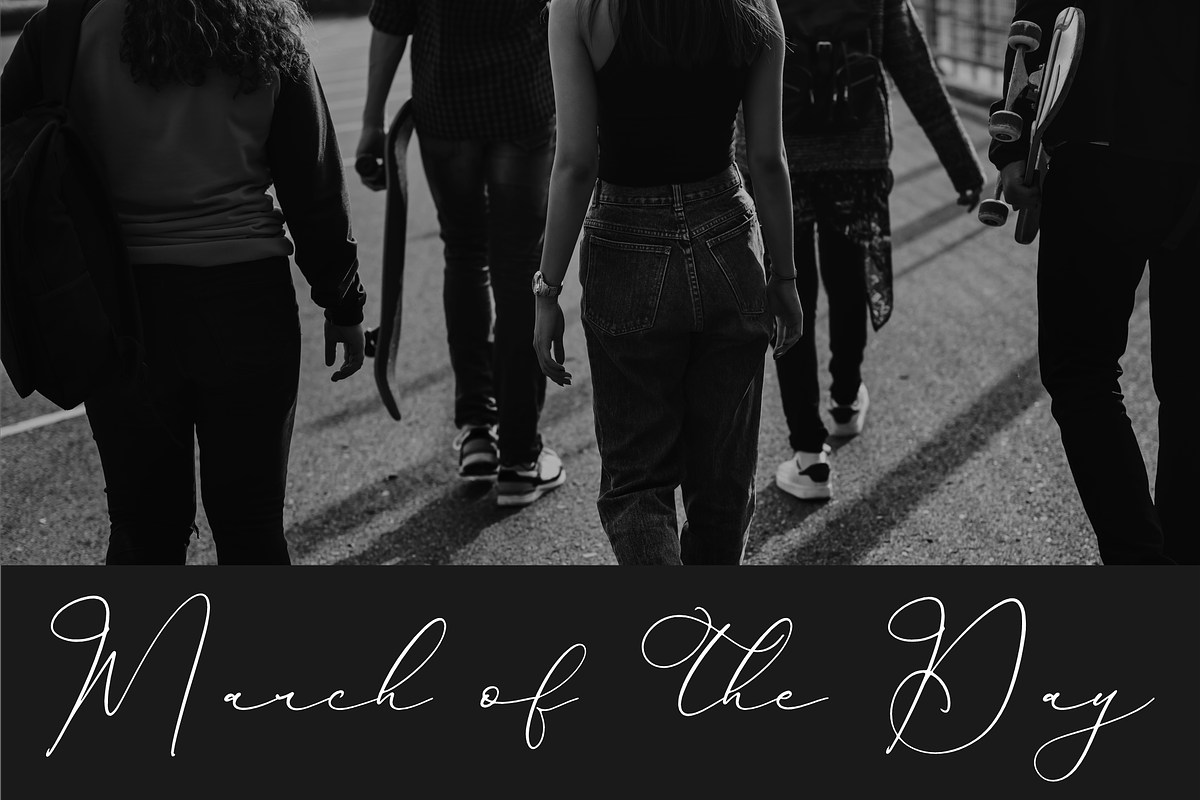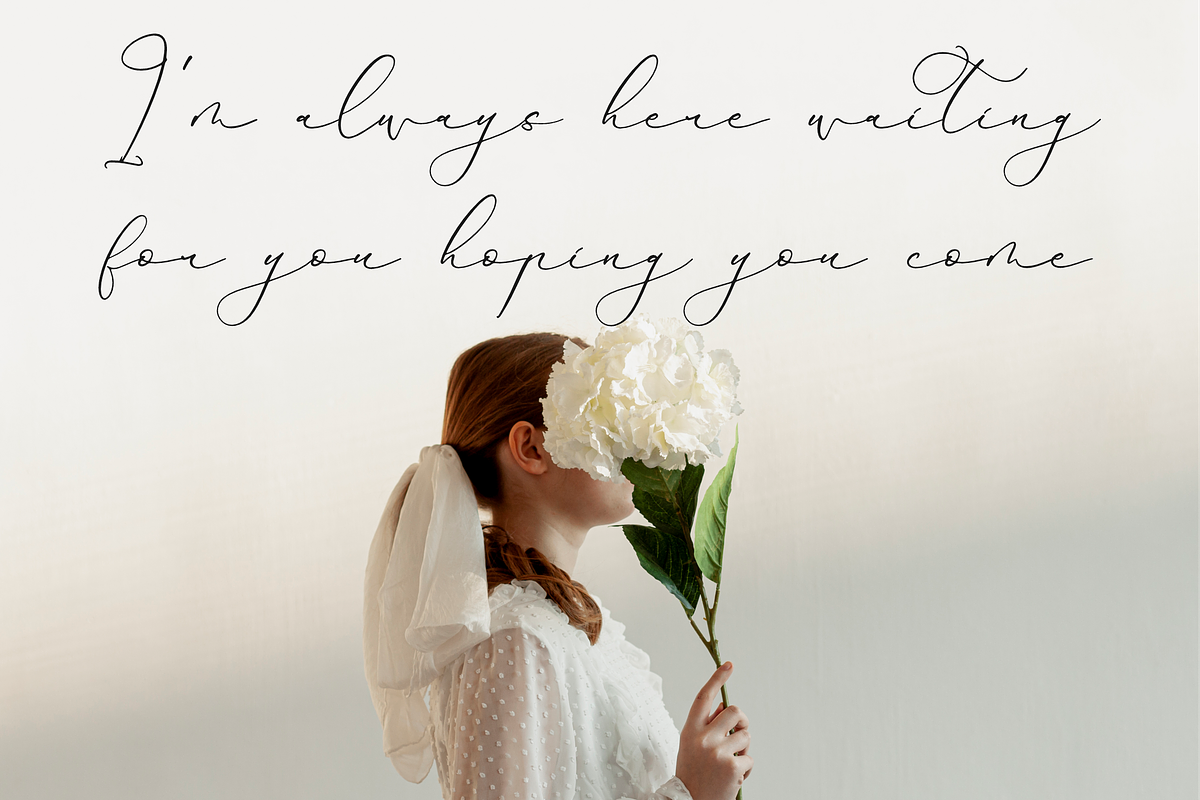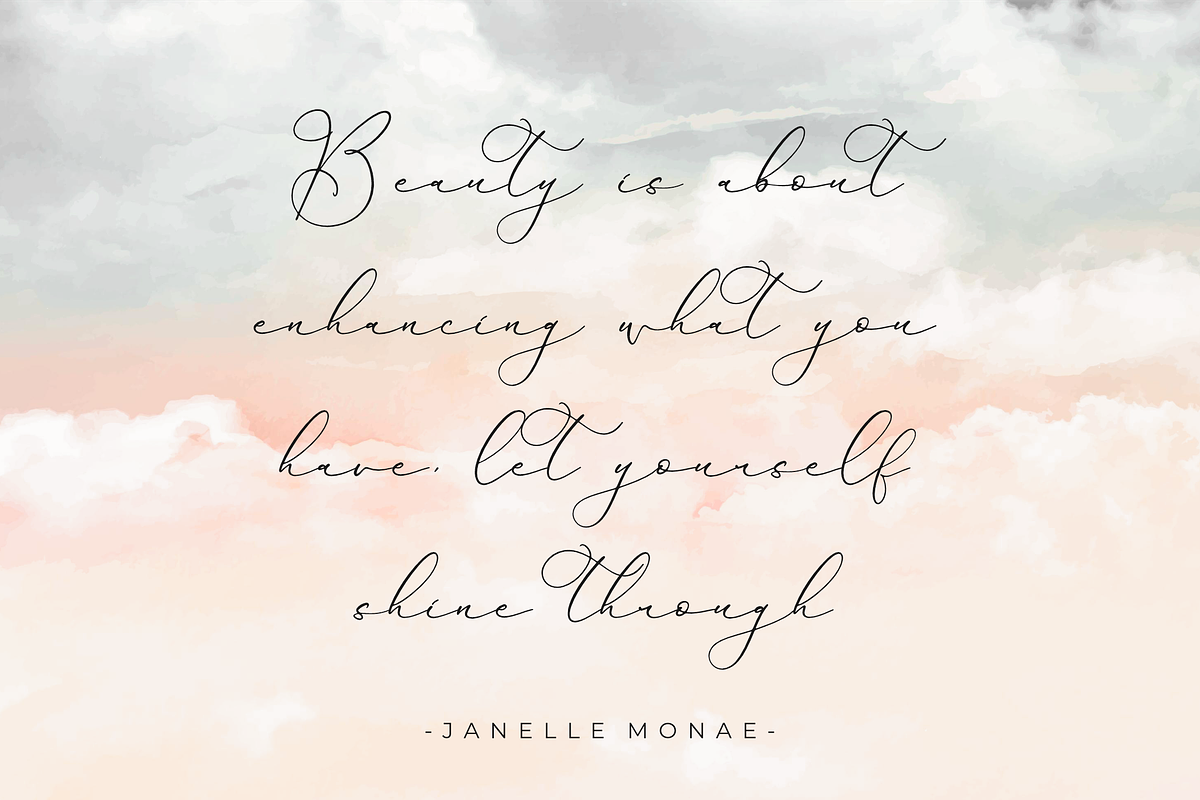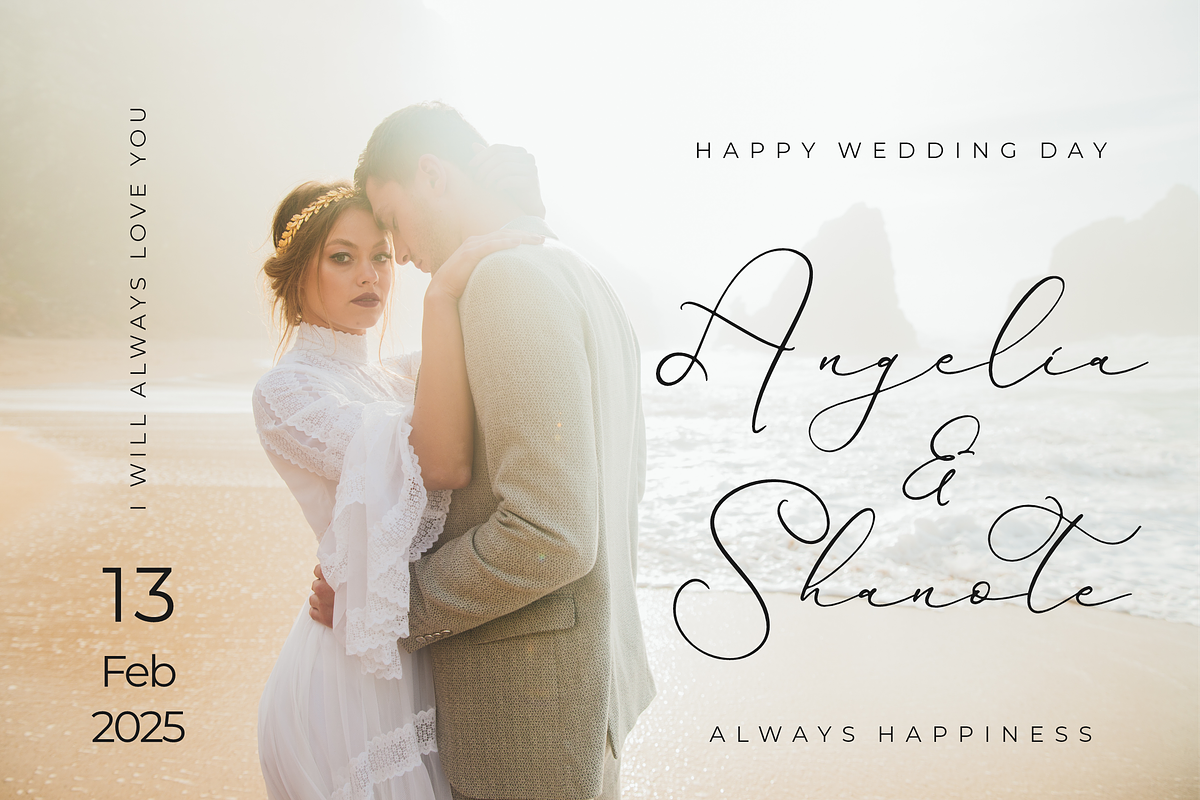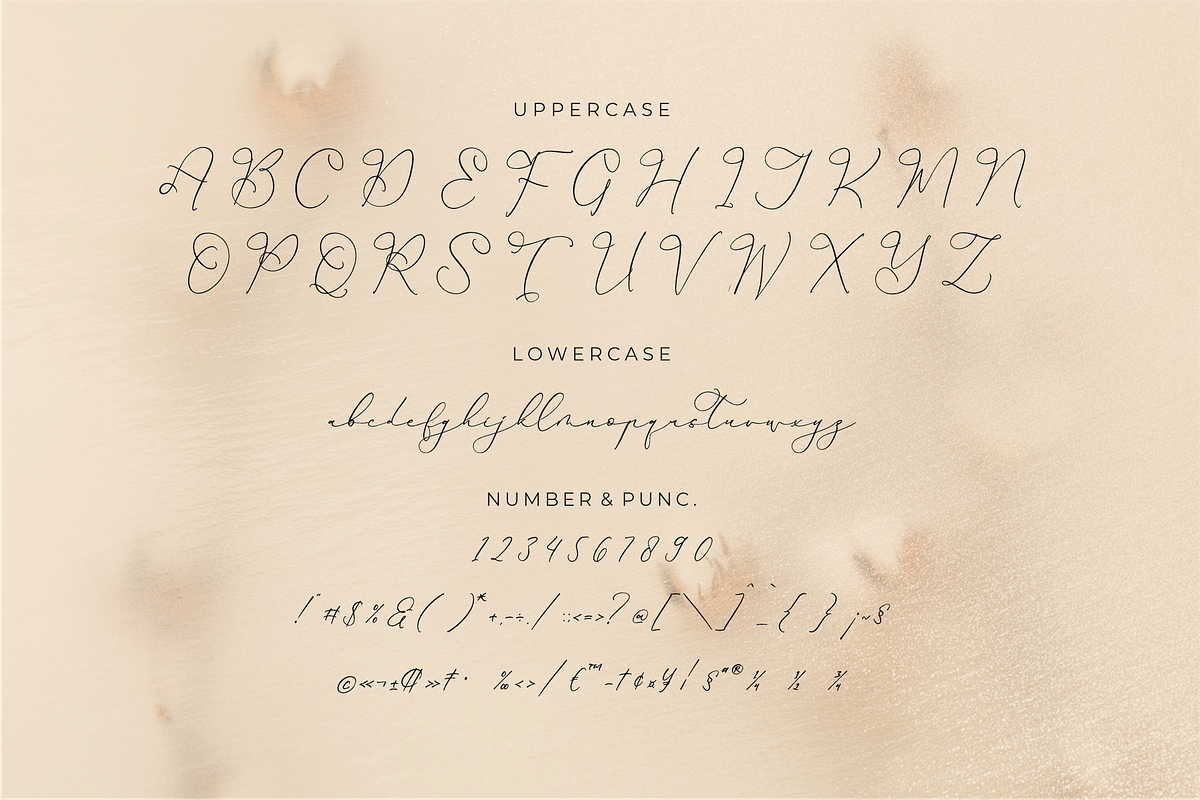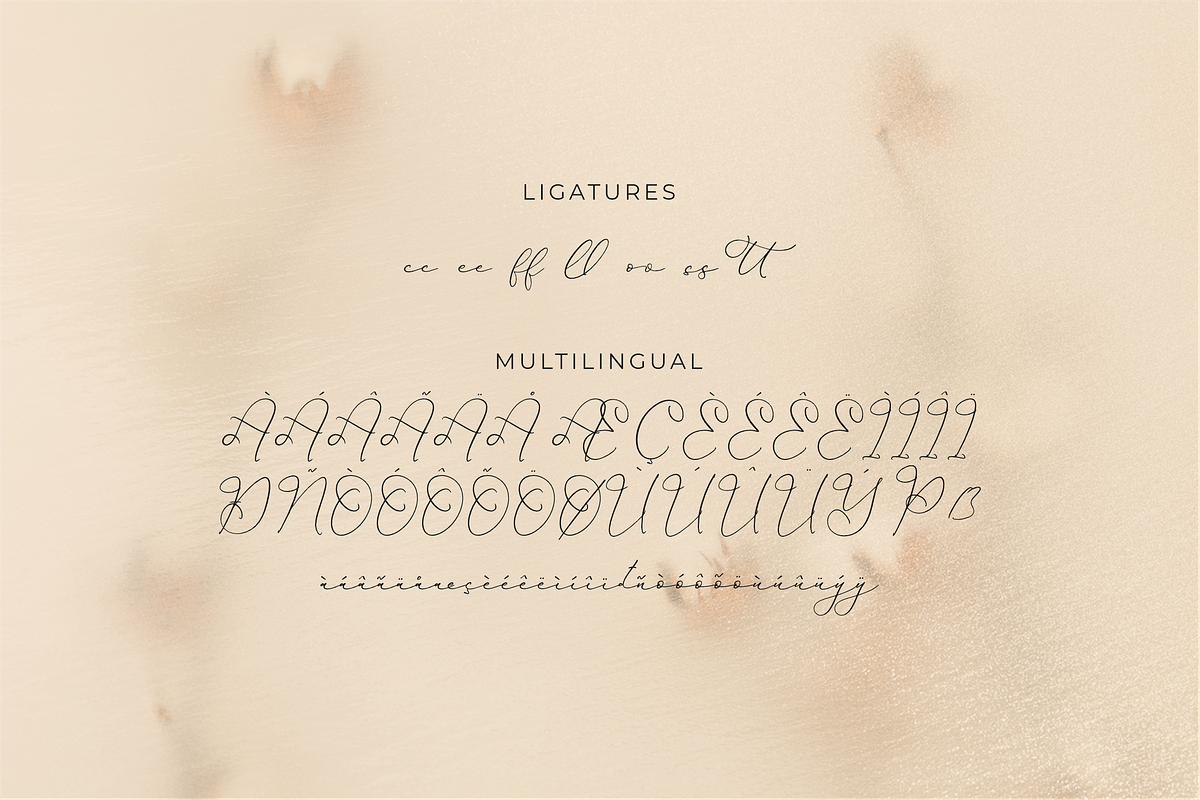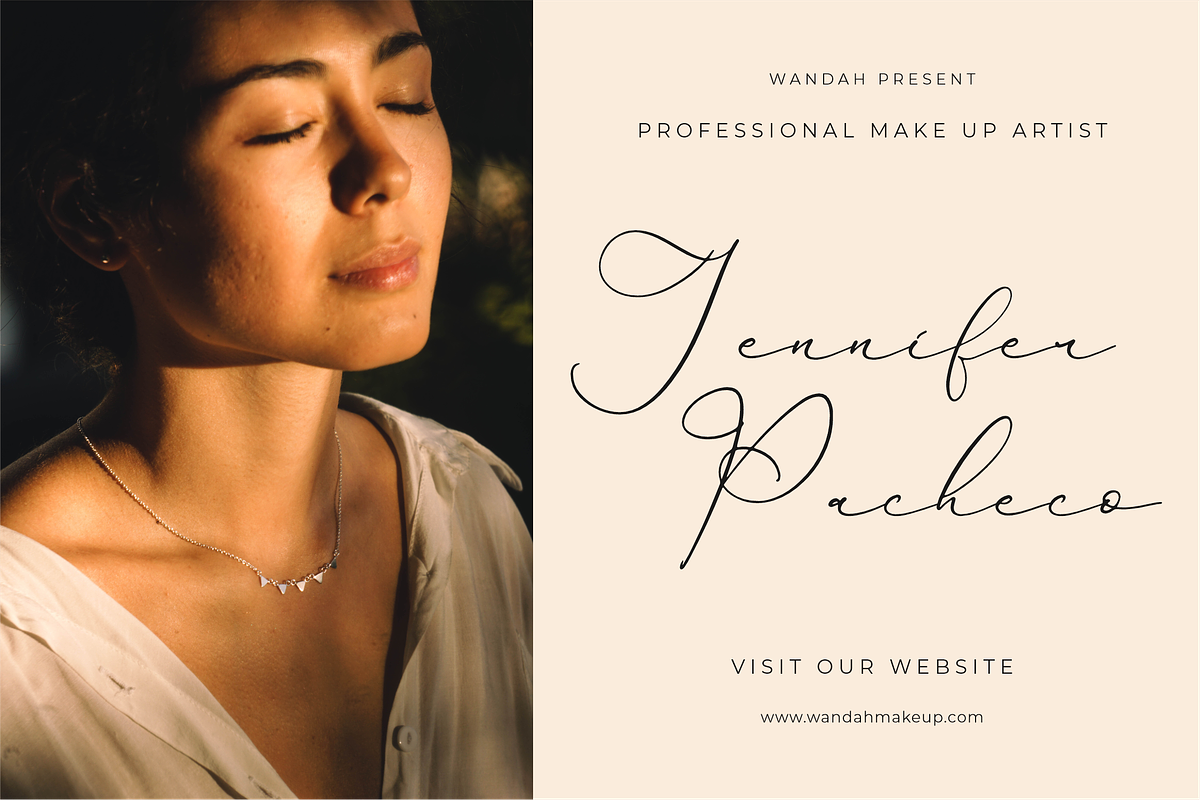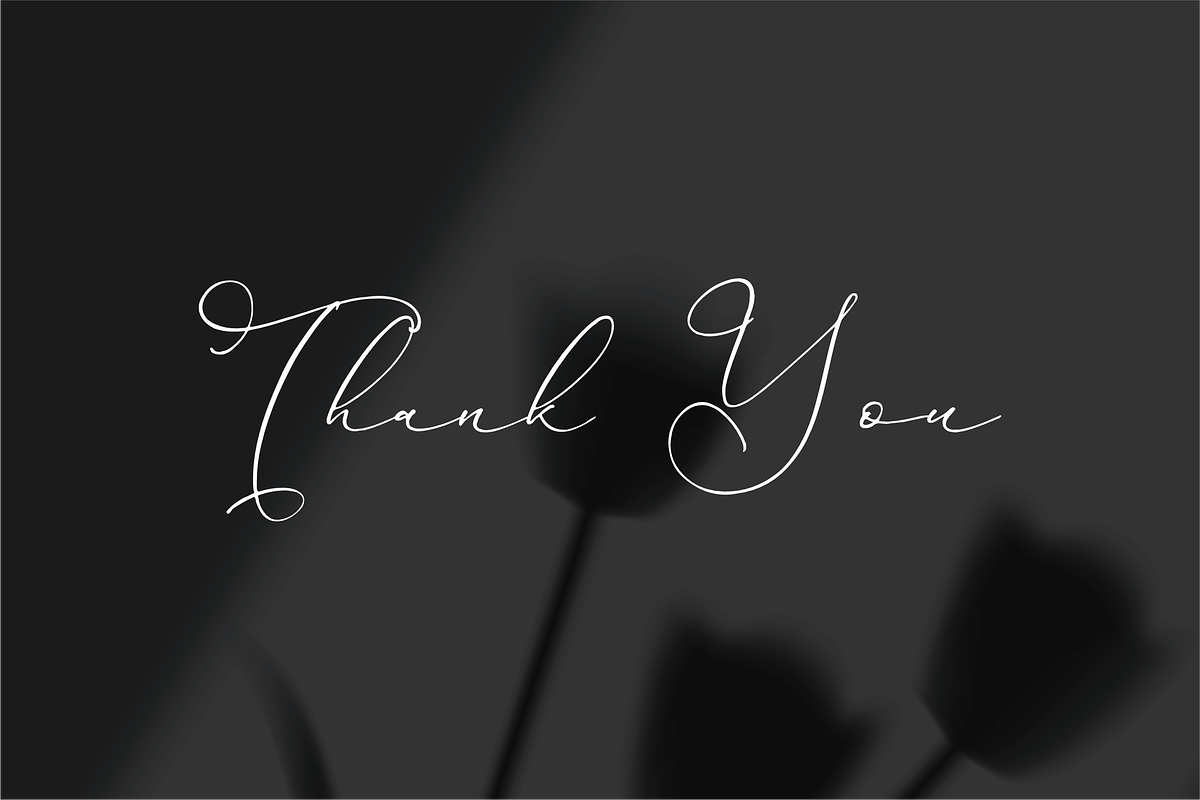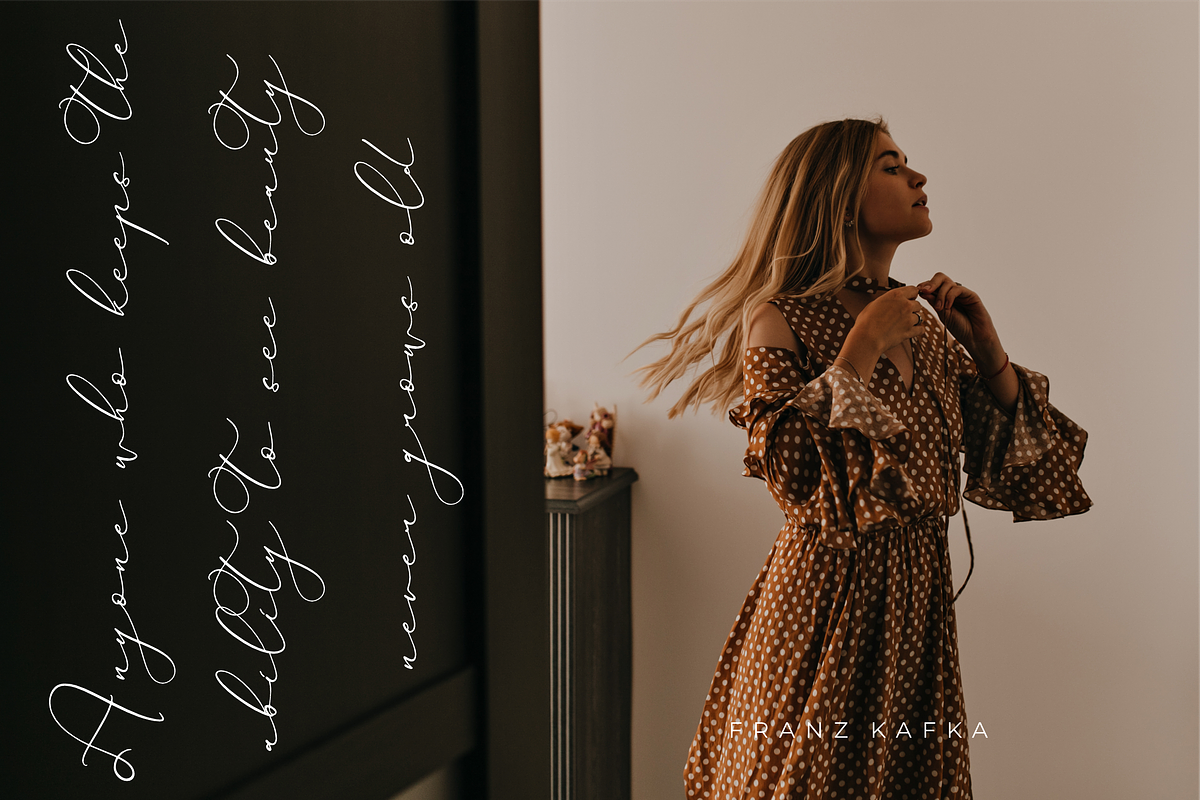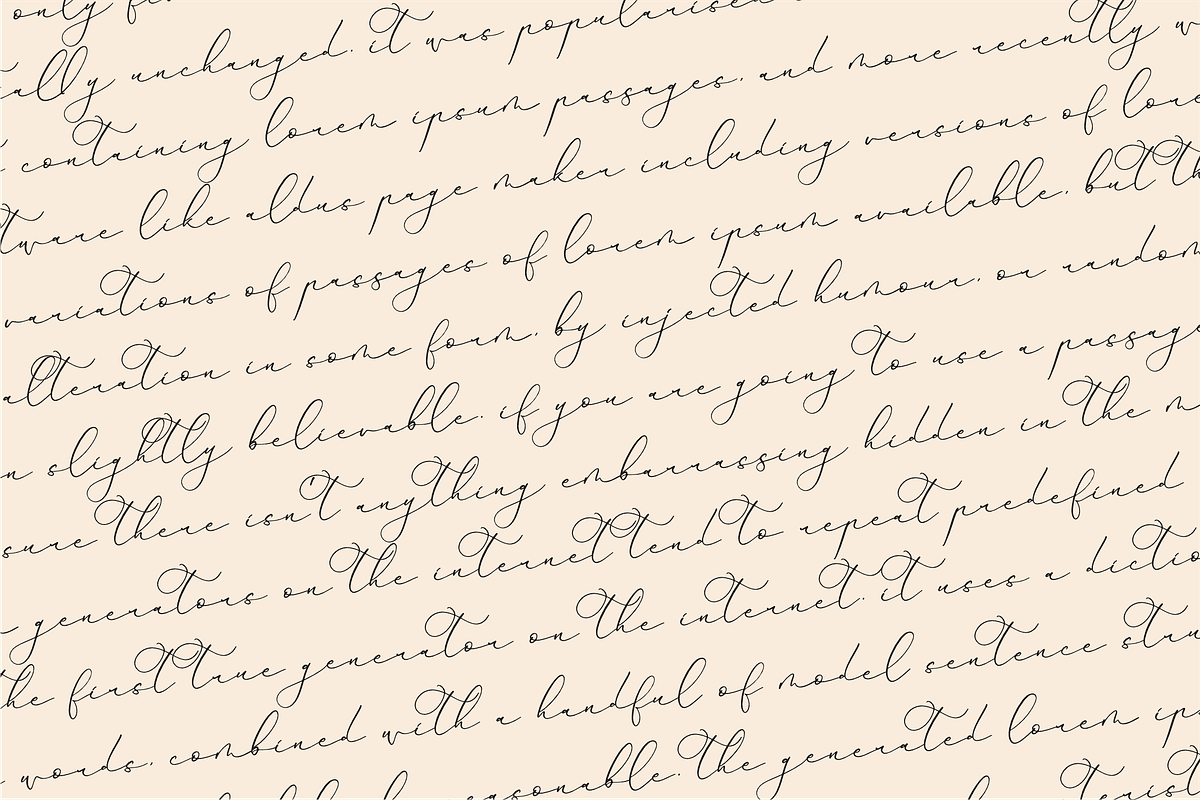
Hardyela Sandert Ballpoint Signature
Proudly present Hardyela Sandert - Ballpoint Signature , created by Storytype, A luxury script that has own unique style & modern look. This typeface is perfect for an elegant & luxury logo, book or movie title design, fashion brand, magazine, clothes, lettering, quotes, and so much more.